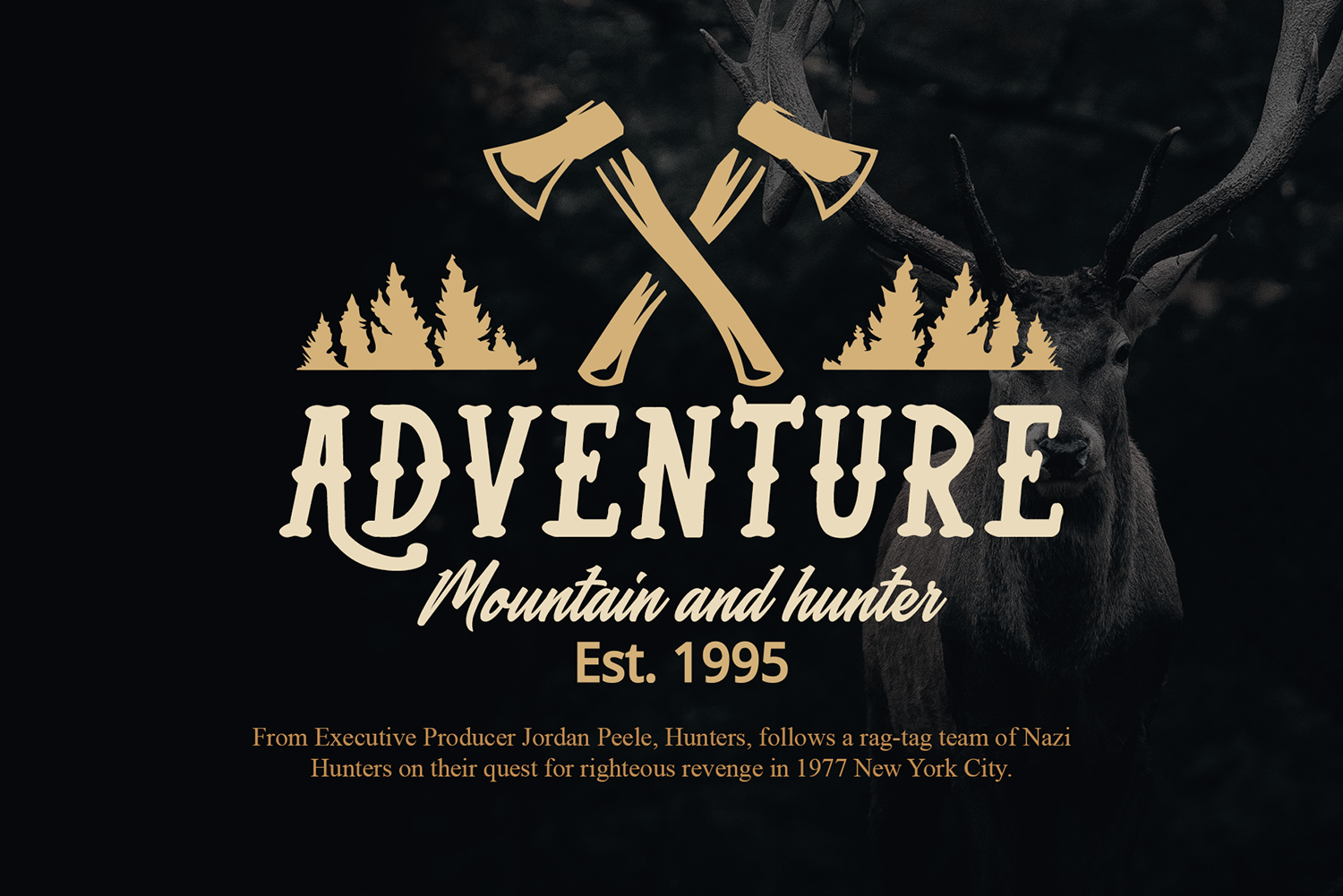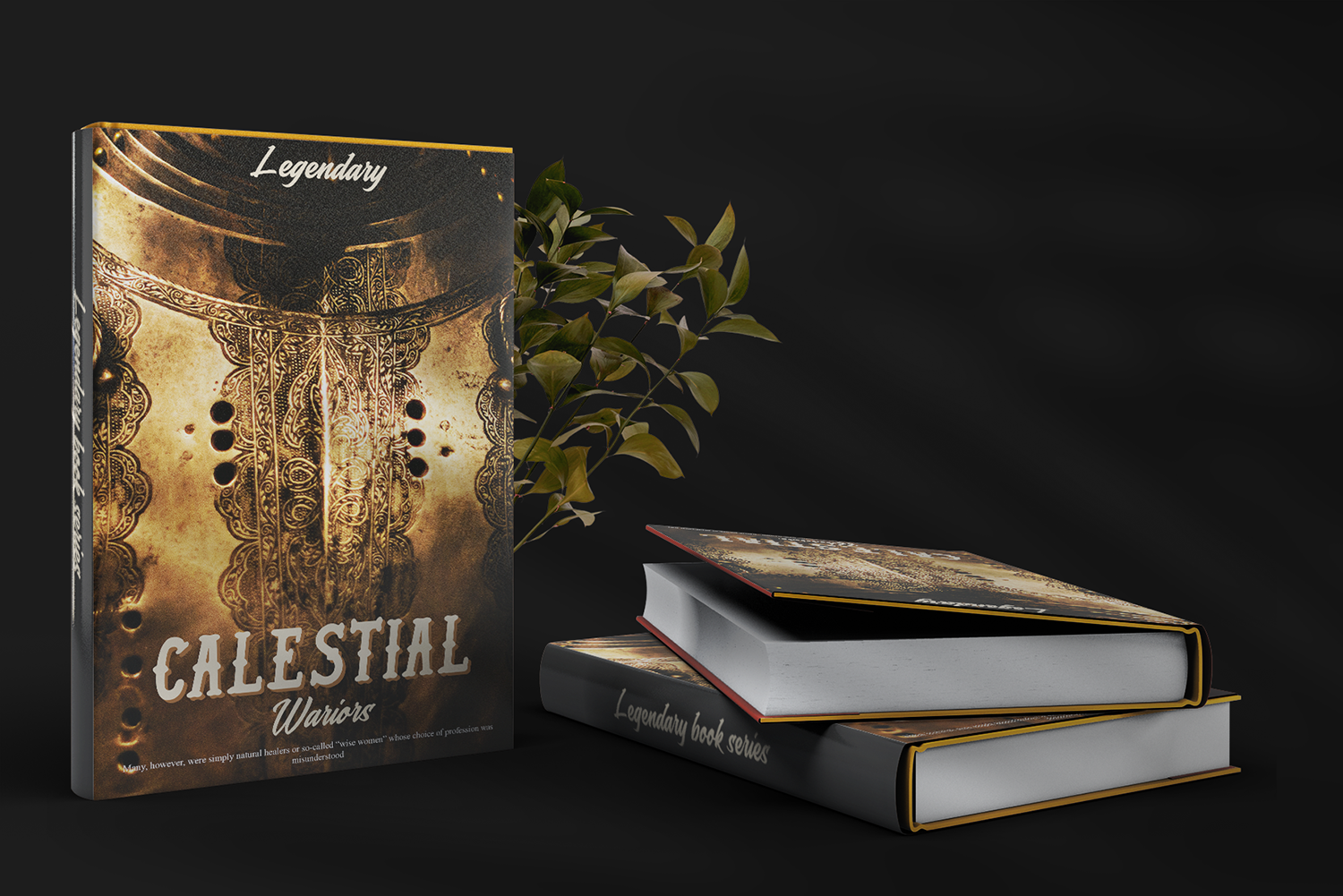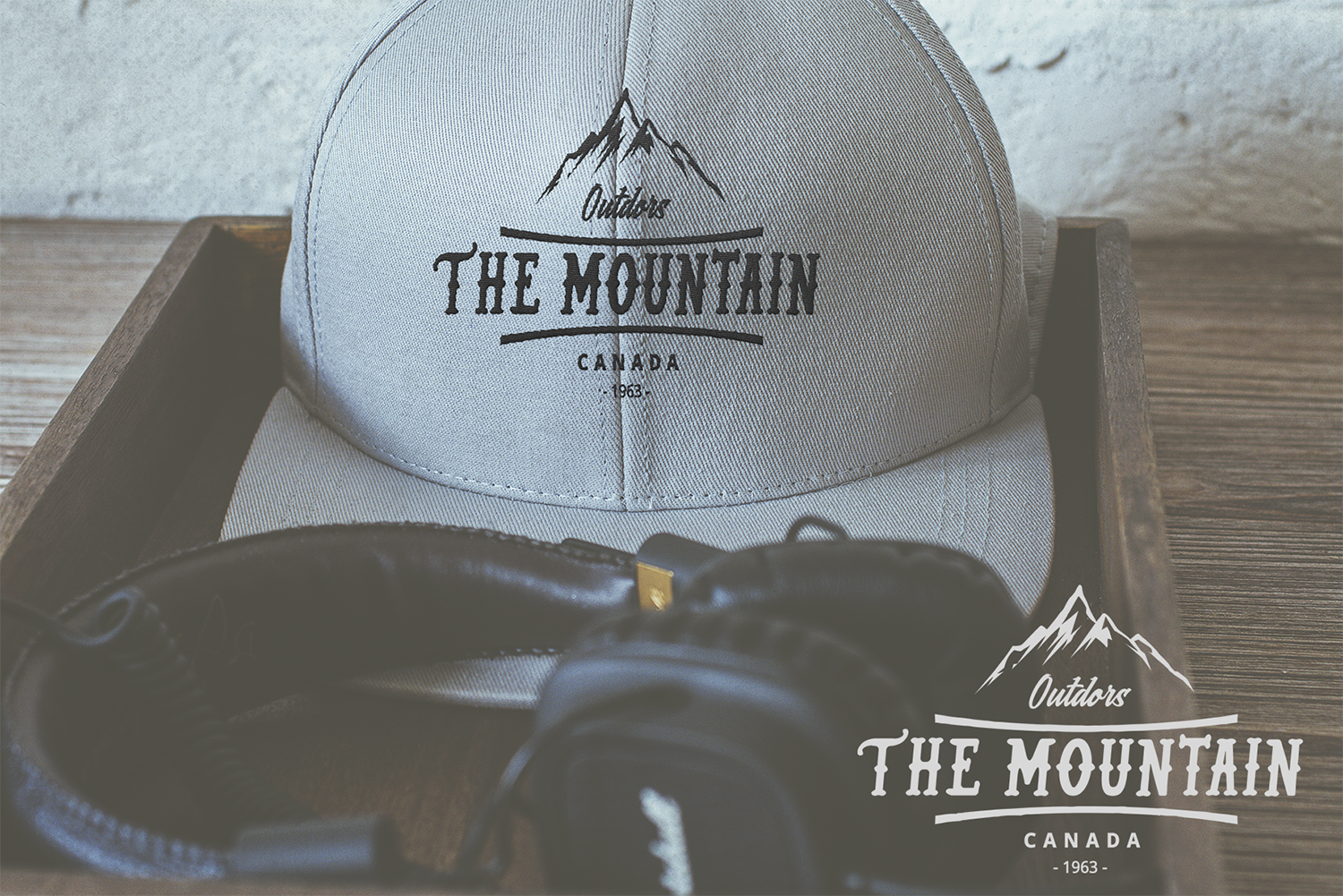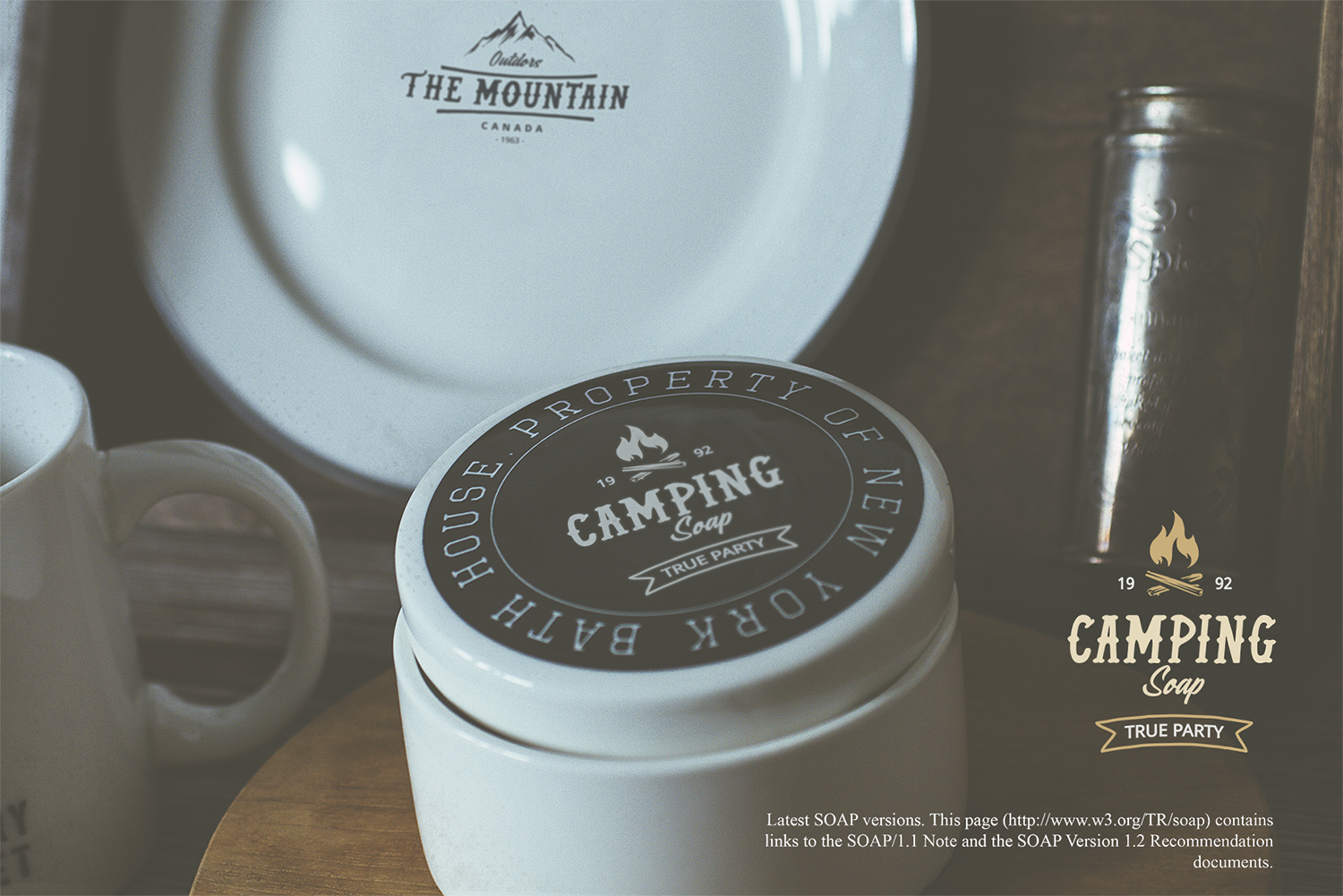
Kind of Rock Free Font
Kind of Rock Free Font is perfect for brand logo, invitations, greeting card, or even any kind of project. With multilingual feature and style variations, this typeface would further enhance the aesthetic aspect of your work. This free typeface was designed by a talented Creatype Studio. If you like it don’t forget to check out the full version.